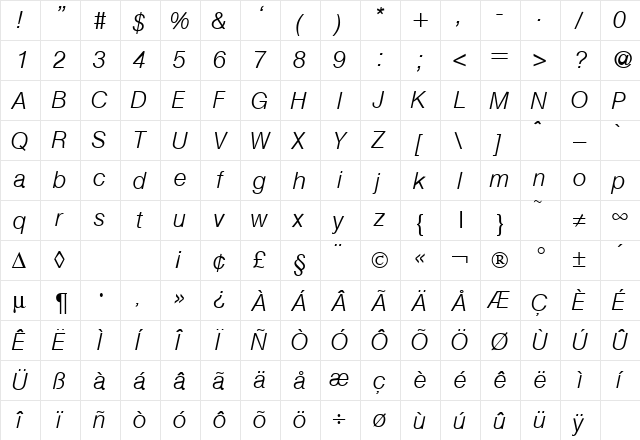
HegelLight RegularItalic Font Preview
HegelLight RegularItalic
Design Context for HegelLight Typeface
HegelLight takes a measured approach to typography — its balanced proportions and neutral character make it a reliable workhorse for both digital and print work. Its italic angle brings a sense of urgency and motion to the letterforms. Its slender proportions lend an understated elegance to any composition.
Pro Tip: Use HegelLight for emphasis, pull quotes, and subheadings where its slanted energy can add rhythm to the layout.